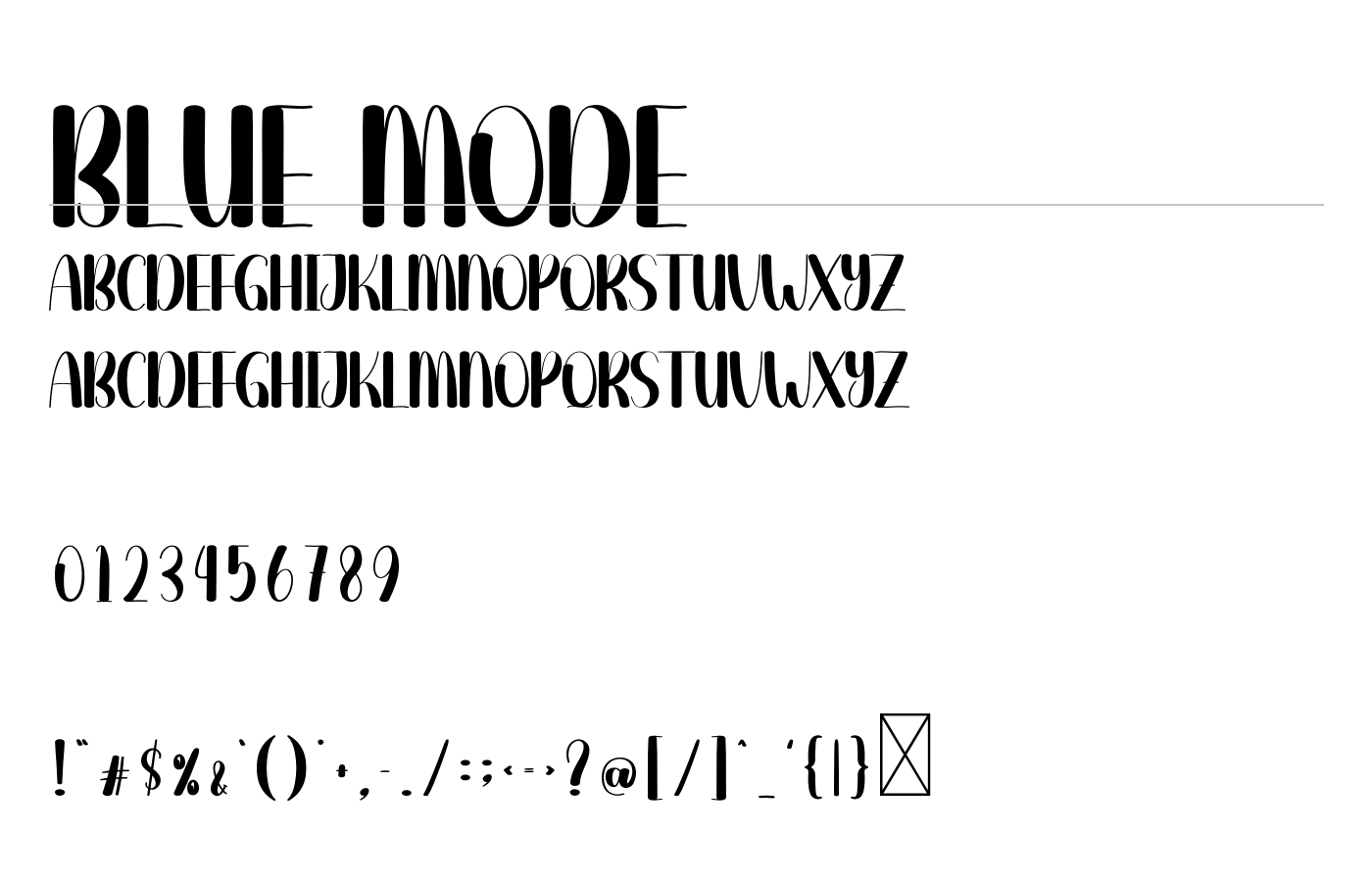
Blue Mode is a playful and modern handwritten sans serif font with tall, narrow letterforms and a quirky mix of thick and thin strokes that give it a lively, artistic feel. Its unique, slightly condensed shapes and casual curves make it perfect for creative branding, invitations, and headlines where personality and elegance are desired without sacrificing readability. This font works well for fashion, boutique logos, and editorial designs that aim to stand out with a fresh, stylish voice.
Blue Mode Font